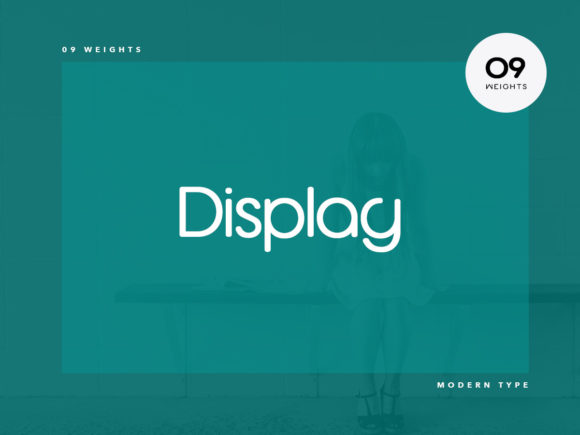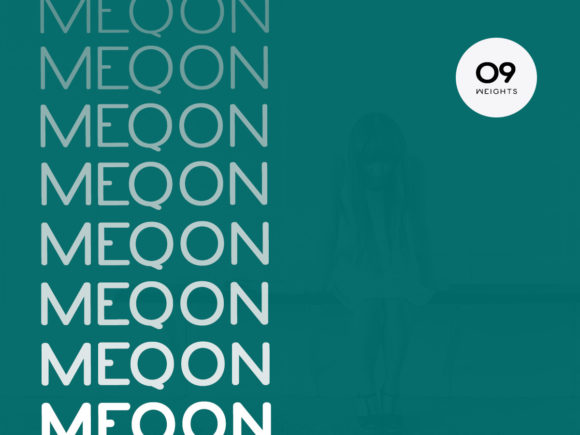
Introduction to Megon Font
Have you ever been working on a creative project, pouring your heart and soul into it, only to feel like something’s missing? The right font can make all the difference, and that’s exactly what we’re excited to introduce you to – the Megon Font. This cool and modern display font is the perfect addition to any design project, and we can’t wait to share its possibilities with you.
As a valuable design resource, Megon Font offers a high-quality solution for anyone looking to elevate their creative project. Whether you’re working on a digital design, a print project, or even a logo, this font is sure to stand out. With its transparent background and sleek design, Megon Font is a free download that’s perfect for designers who want to add a touch of sophistication to their work.
- Comes in a range of styles and weights, offering versatility for different design needs
Honest Review: Megon Font
I recently had the chance to work with the Megon Font, and I must say it’s been a game-changer for my design projects. ✨ The high-quality typography has added a touch of elegance to my creative projects, and I appreciate the fact that it’s available for free download.
One of the standout features of the Megon Font is its transparent background, which makes it perfect for designing graphics and backgrounds that require a high level of customization. The font’s versatility has allowed me to experiment with different design styles and layouts, making it a valuable resource for my design work.
Here are some of the things I love about the Megon Font:
- High-quality typography that’s perfect for creative projects
- Transparent background allows for customization and flexibility
- May not be suitable for very large-scale design projects due to its relatively small size
- Could benefit from additional font weights and styles for more comprehensive design options
Overall, I’m thoroughly impressed with the Megon Font, and I’d highly recommend it to designers looking for a reliable and high-quality design resource for their creative projects. ⚠️ With a few minor limitations, the Megon Font has become a staple in my design toolkit.
Tips for Getting the Most Out of Megon Font
For optimal results, use the Megon Font on a transparent background to create a seamless design. Experiment with different font sizes and colors to enhance the visual appeal of your project.
The Megon Font is ideal for various creative projects, including:
- Graphic design and branding
- Print media and advertising
Alternatives to Megon Font
Compared to Megon Font, Great Vibes Font has a more delicate and flowing appearance, making it suitable for designs that require a softer, more feminine touch. While Megon Font has a more geometric feel, Great Vibes Font is ideal for projects that need a more organic, handwritten look.
Compared to Megon Font, Carolyna Pro Font has a more contemporary feel, making it suitable for designs that need a modern and trendy look. While Megon Font has a more playful and whimsical appearance, Carolyna Pro Font is ideal for projects that require a more serious and professional tone.
Is the Megon Font suitable for designs with a transparent background?
The Megon Font’s design and structure make it suitable for use on transparent backgrounds. However, it’s crucial to ensure that the font’s transparency settings are correctly configured in your design software to achieve the desired effect. Some design software may require additional adjustments to accommodate transparent backgrounds.